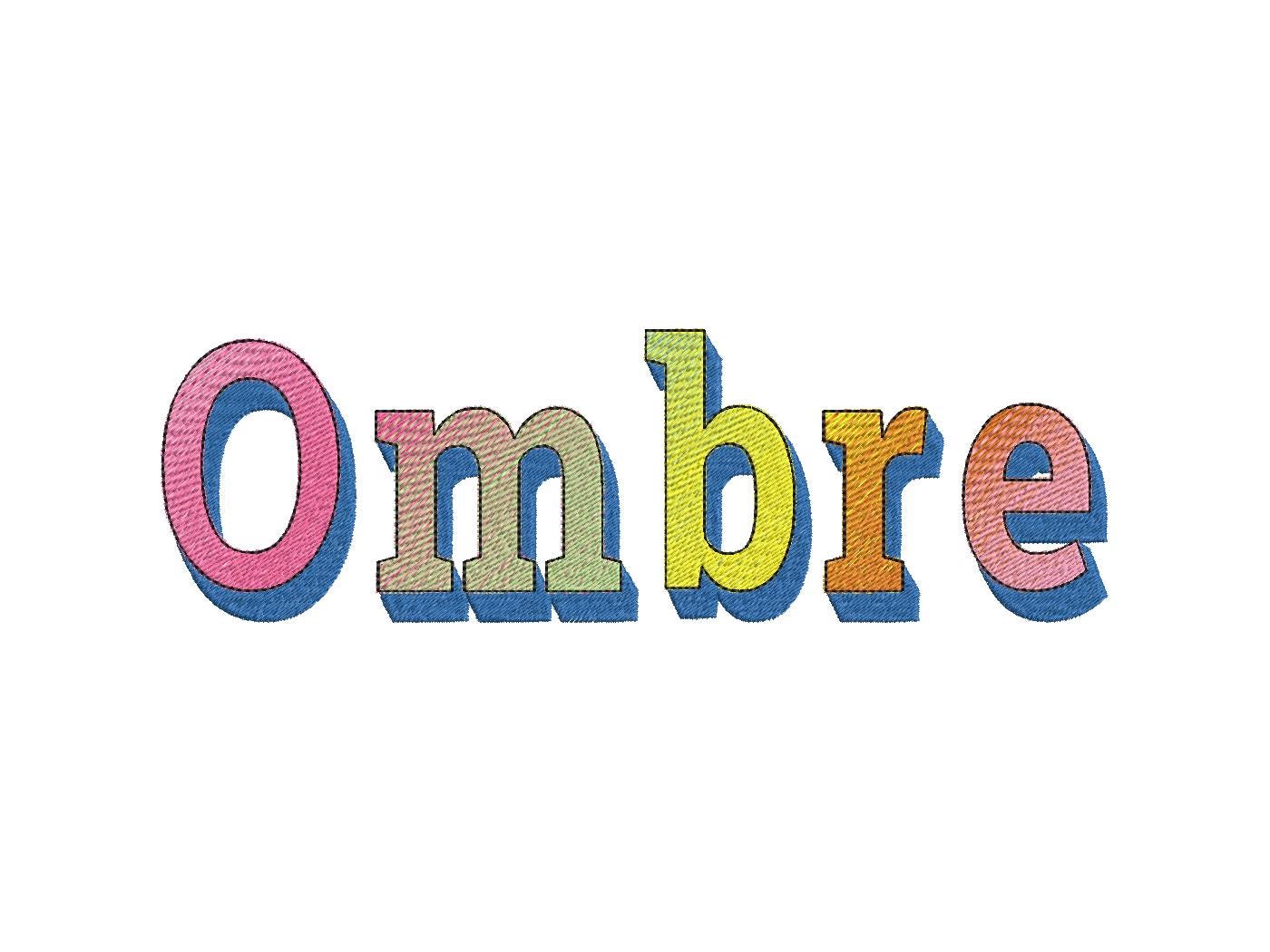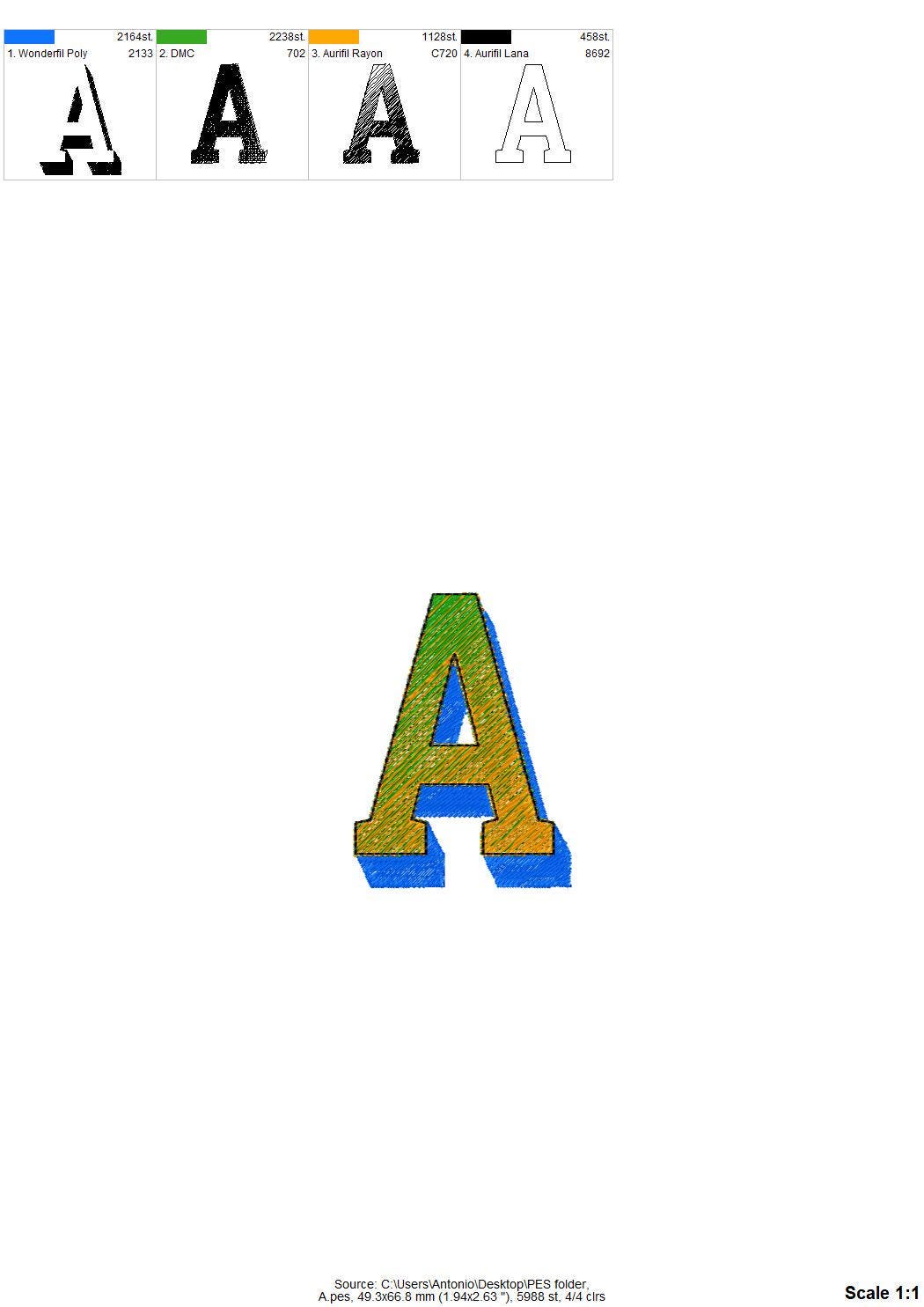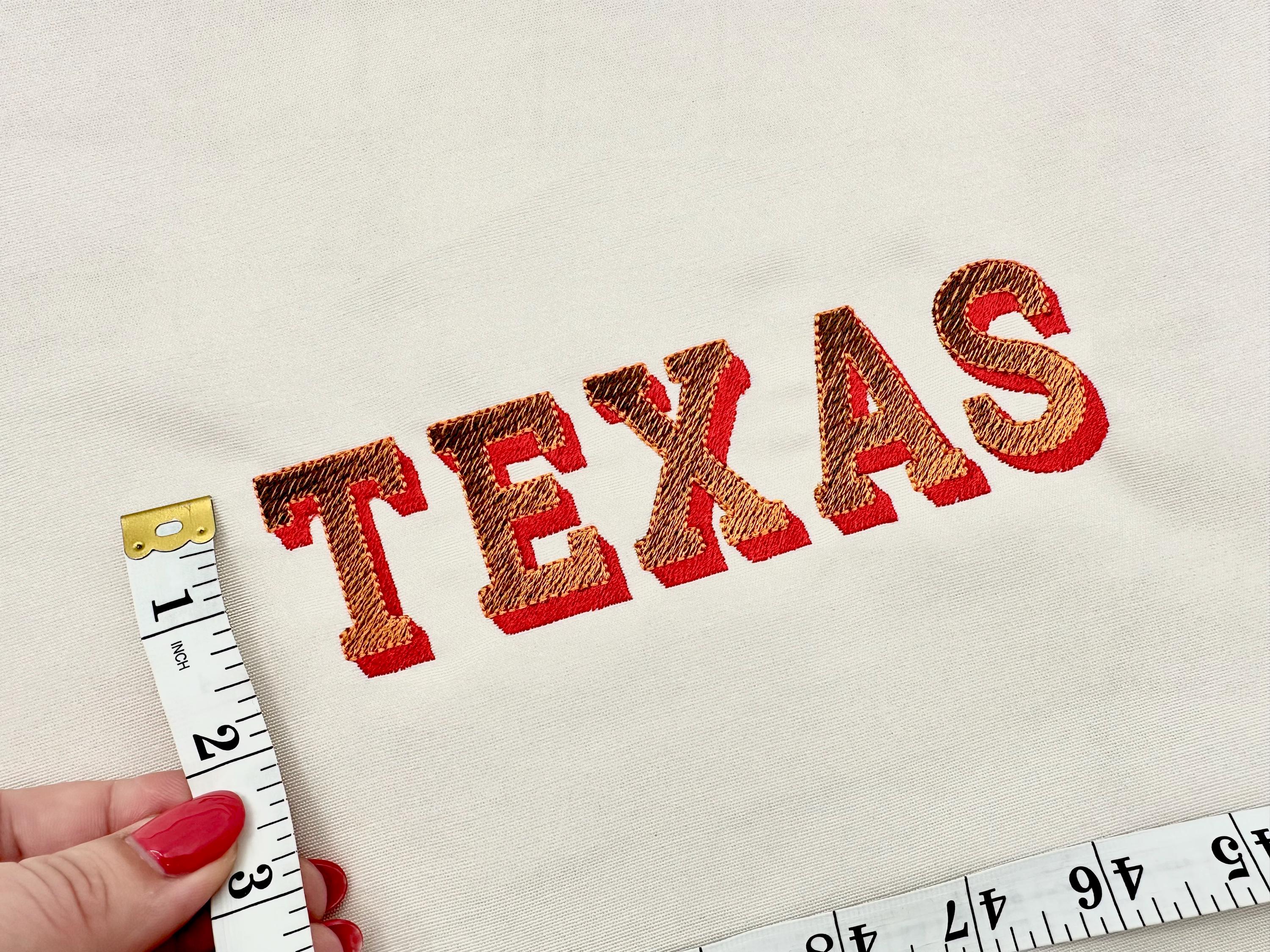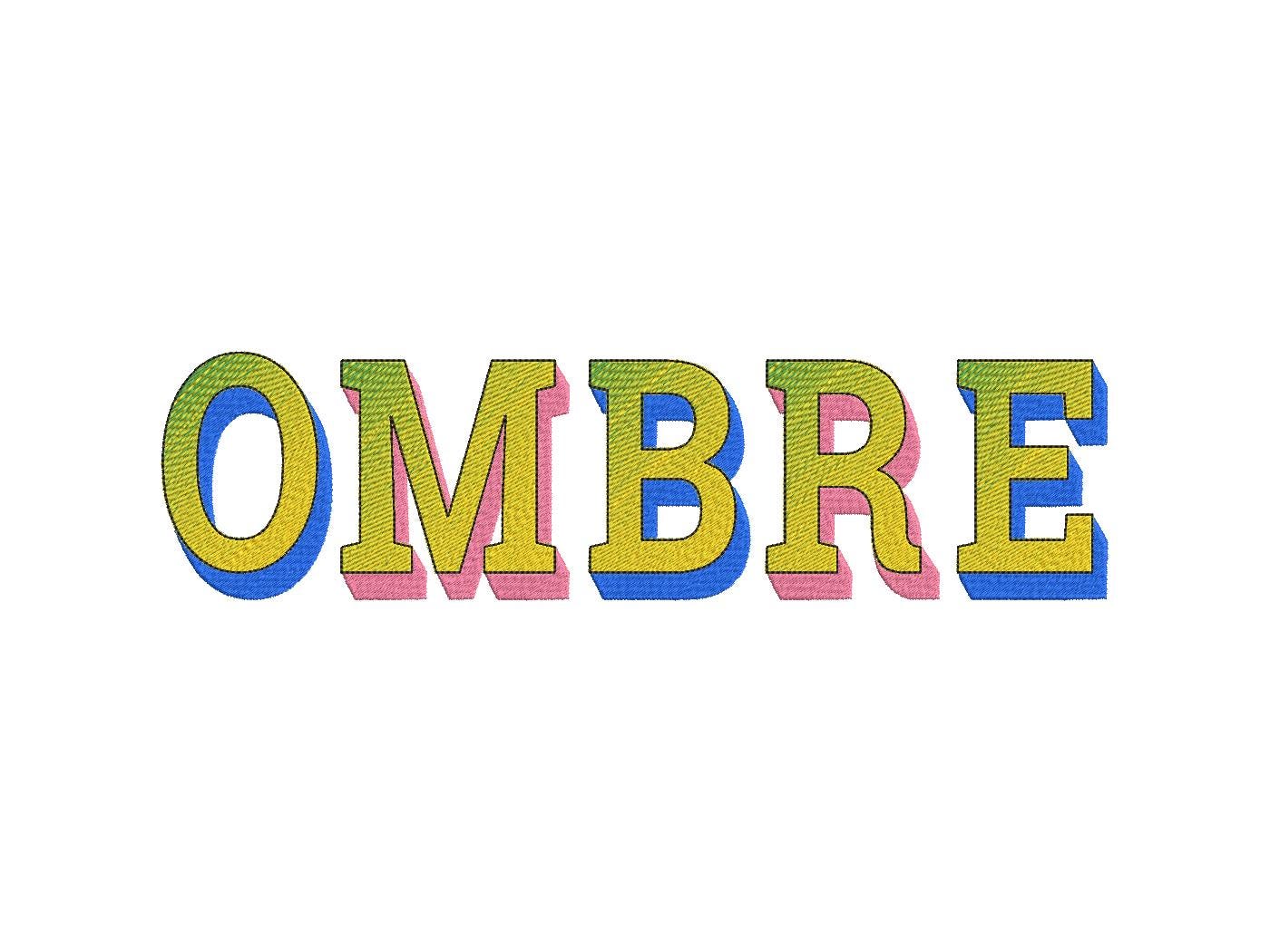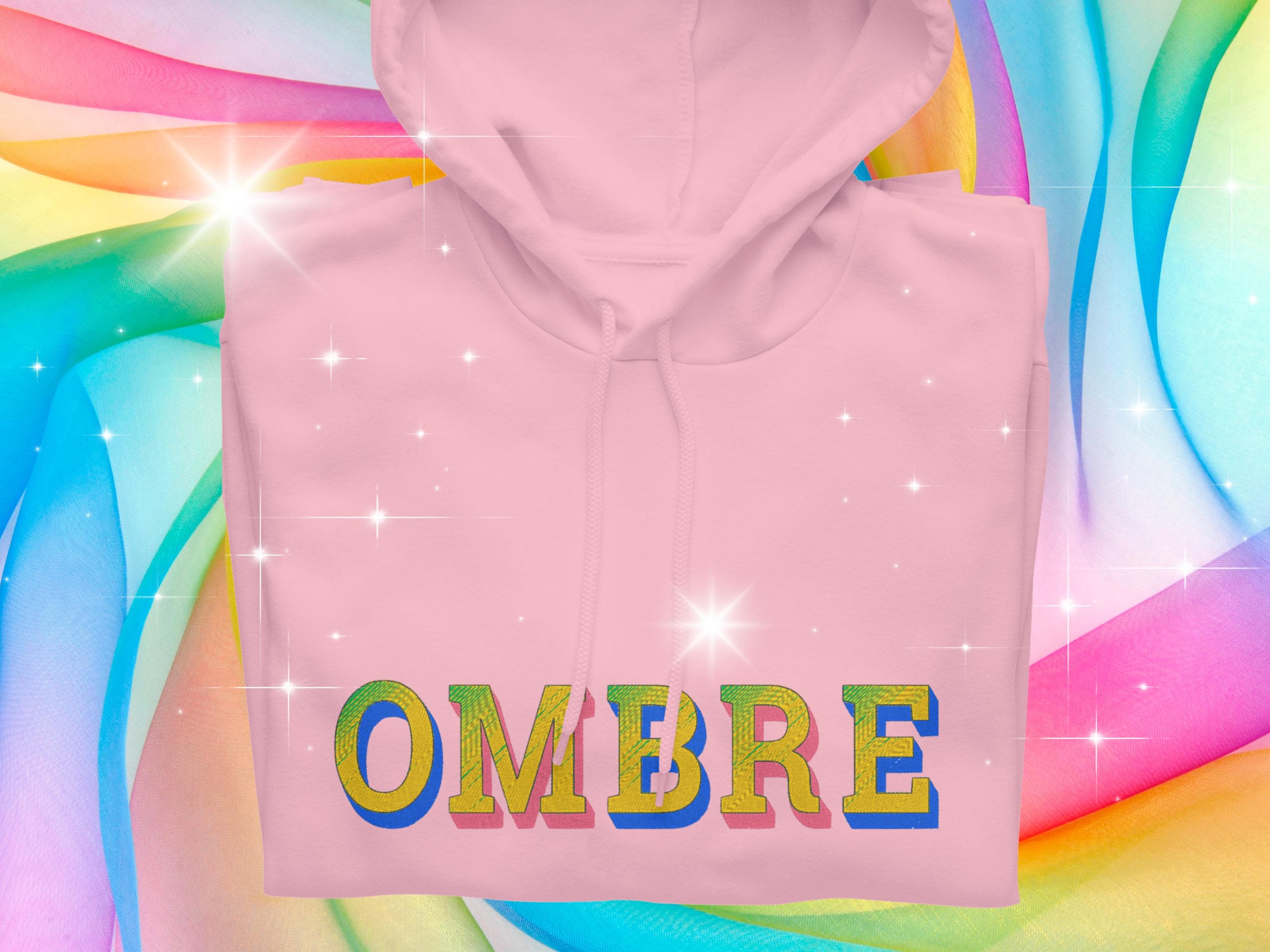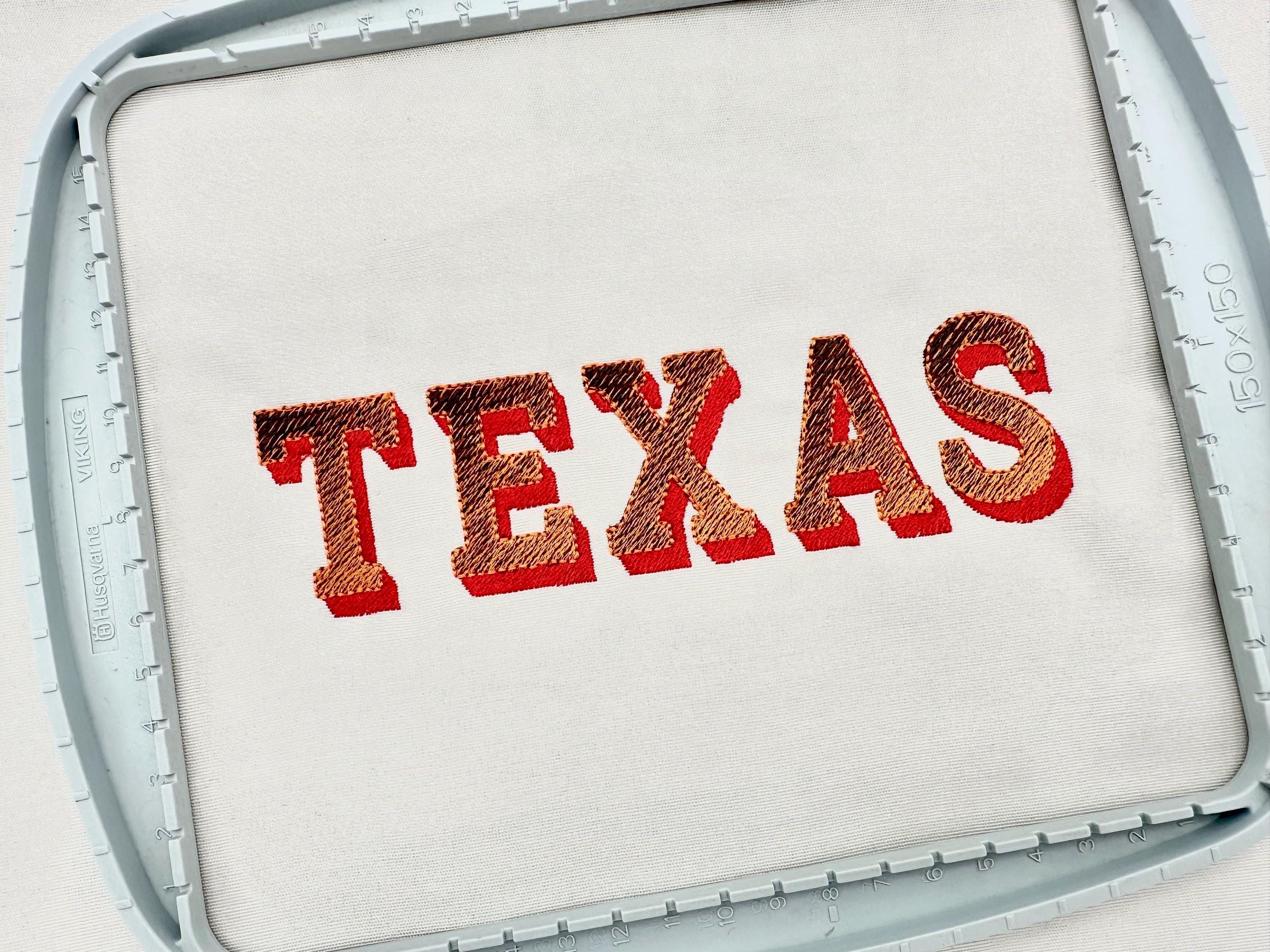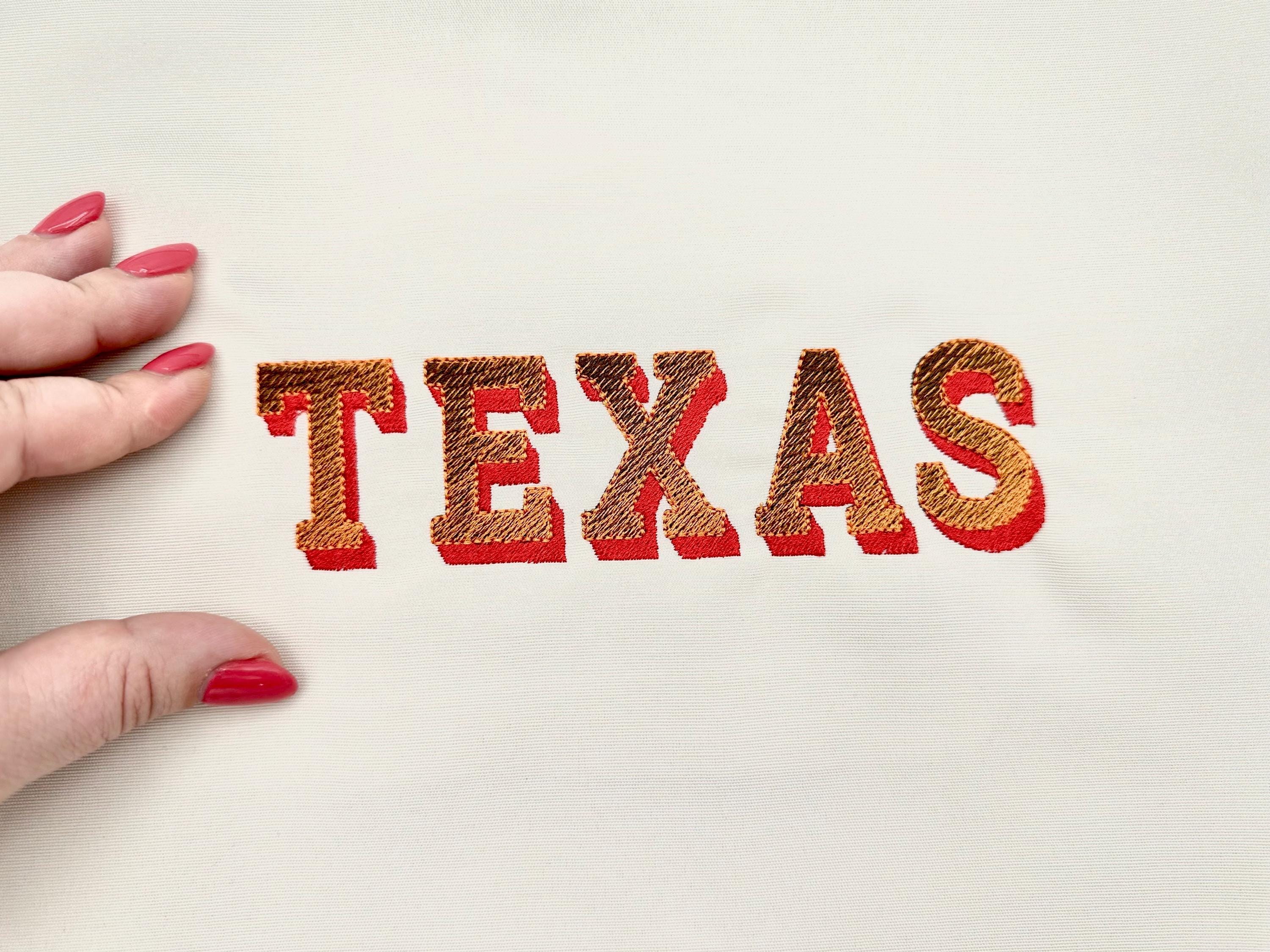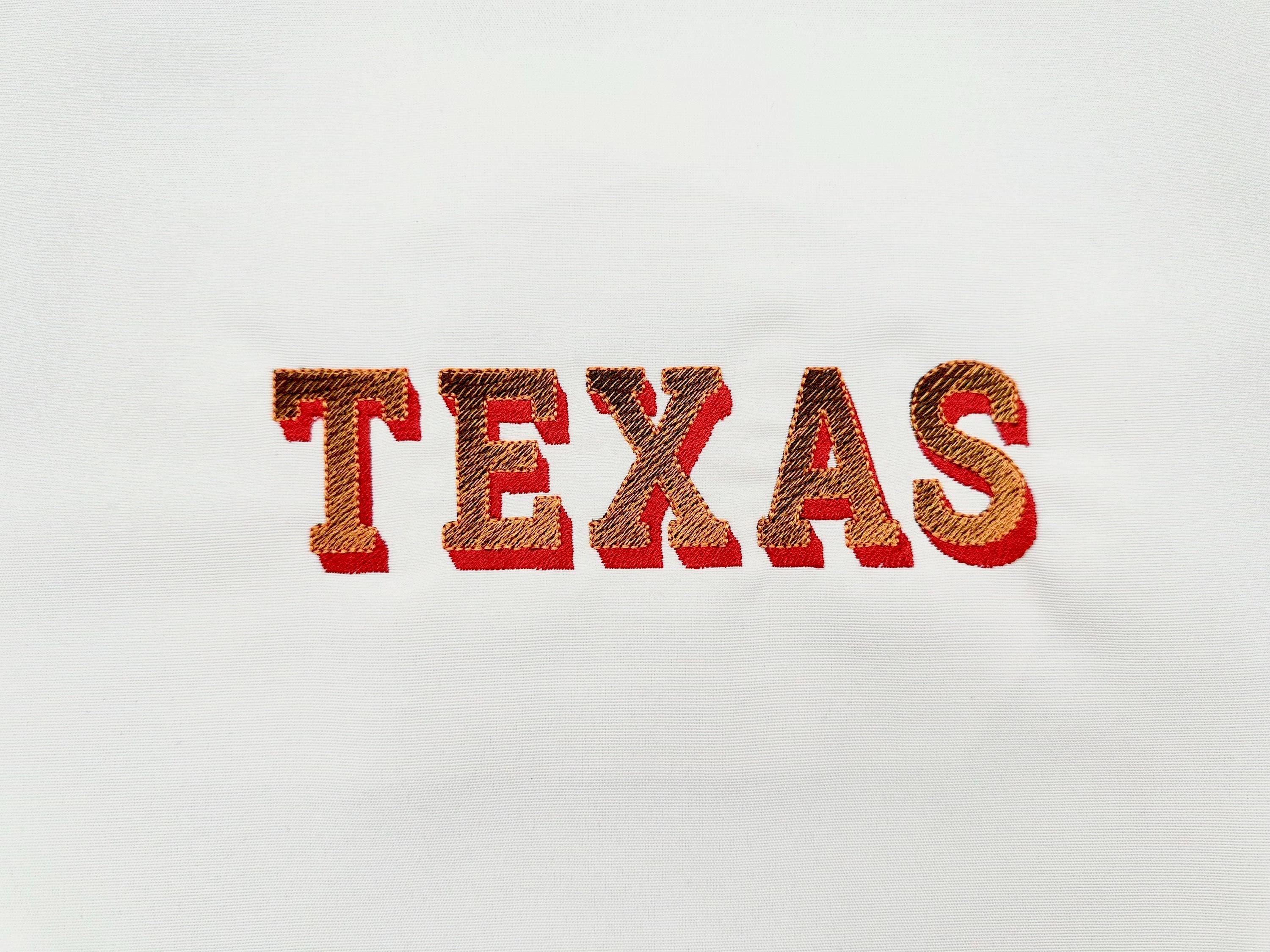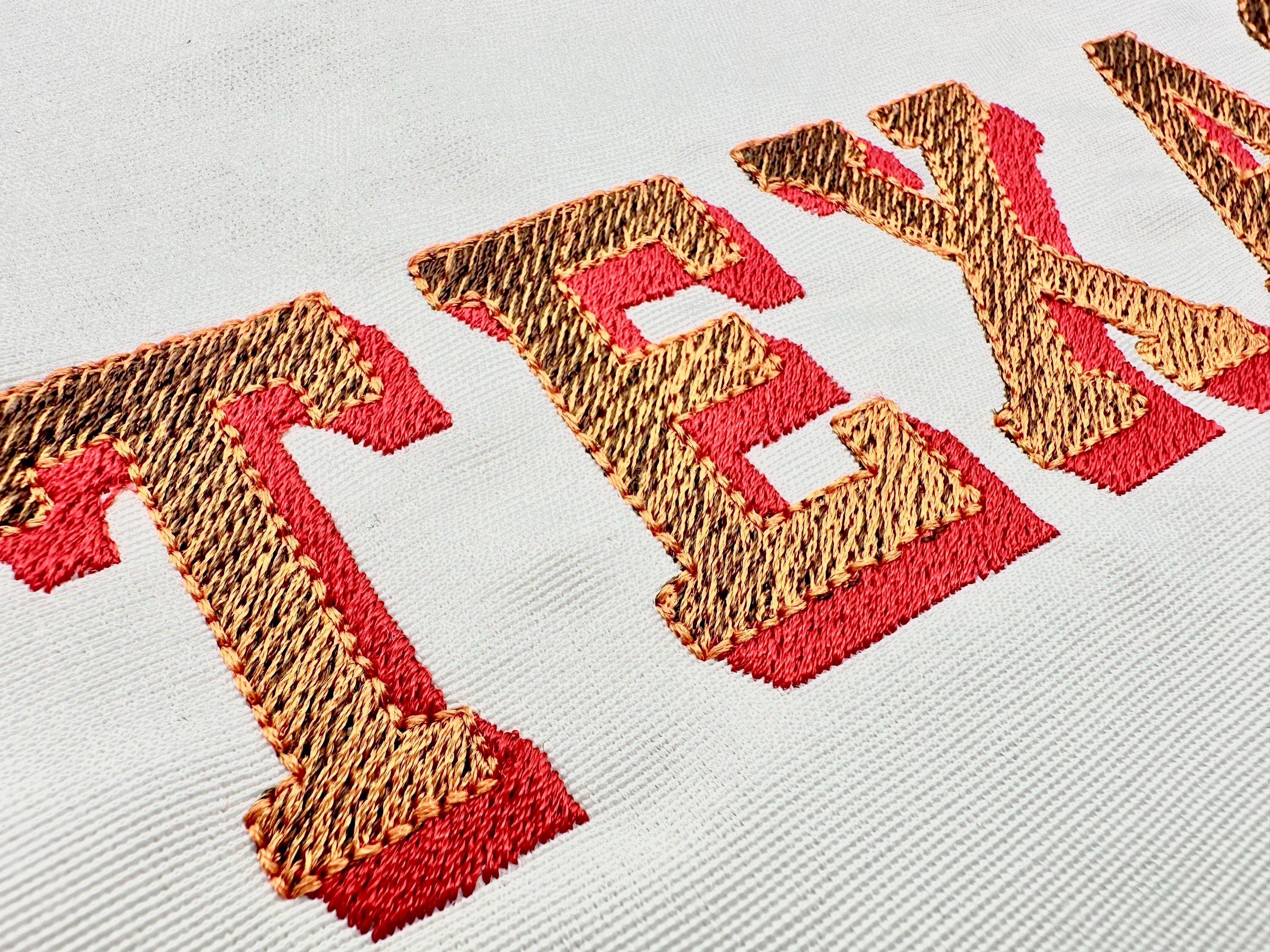
Ombre Iridescent Font Alphabet letters numbers punctuation Gradient Font machine embroidery designs shadowed monogram
No special thread is required! It looks incredible! For this font, regular solid color threads are used (not multi-colored).
The letters are stitched with regular solid color threads, just used 2 colors to make a nice iridescent effect, plus one color for the shadow, and one for the outline.
The pattern creates this amazing effect all by itself. Iridescent comes thanks to the design, every letter is filled with 2 colors. While stitching on one side of the letter with one color, and on the other side stitches with the second color.
Whole alphabet uppercase and lowercase letters Aa-Zz, numbers 0-9, and punctuation.